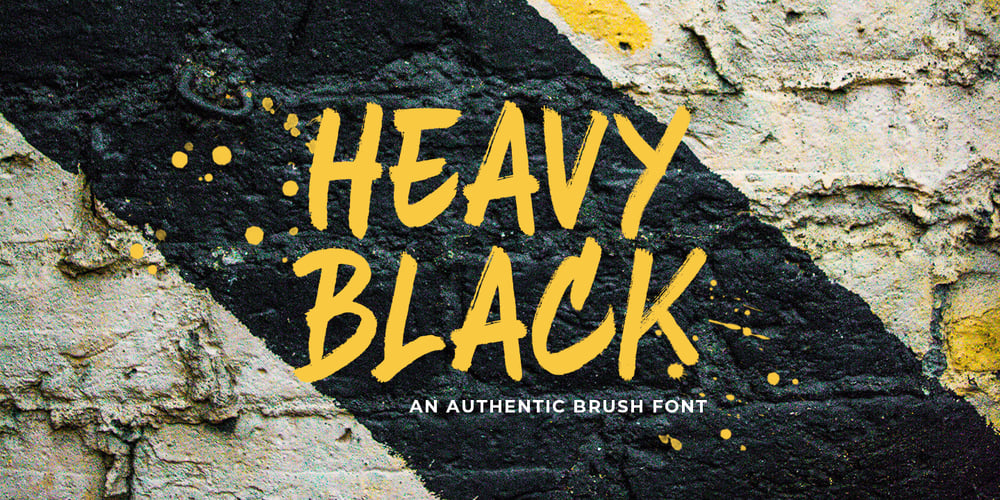
Heavy Black
Heavy Black font
Heavy Black Font Family was designed by Khaidir Fajri and published by Panritype Studio. Heavy Black contains 1 styles and family package options. Heavy Black is all capital brush font, made from real brush pen with original texture. it can work with any design project, such as clothing or street wear logos, headlines, social media, quotes, and more. The original texture will give a strong impression on your design.